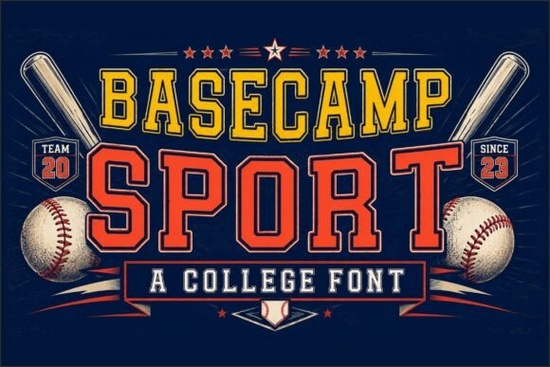
Looking for a typeface that captures the bold energy of classic varsity sports? Basecamp Sport Font is a Basecamp Sport Font designed with strong slab serifs, layered outlines, and a distinctly athletic character. It draws directly from the look of traditional baseball lettering and vintage college branding, making it a solid pick for anyone working on sports-themed designs.
What Makes This Font Stand Out From Other Sports Typefaces?
There are plenty of sports fonts out there, but most of them fall into two camps: either they're too plain or they're so stylized that they're hard to read. Basecamp Sport sits in a useful middle ground. It has the heavy, blocky weight you'd expect from a collegiate display font, but the letter shapes are clean enough to work at different sizes.
A few things worth noting about the design:
- Strong slab serifs give each letter a grounded, sturdy feel that works well for logos and headlines
- Layered and outline-ready styling lets you add depth to your text without needing extra design software tricks
- Uppercase-only character set with numbers and punctuation, which is typical for this kind of display font
If you've used other slab serif fonts before, the letterforms here will feel familiar. But the sporty proportions and bold weight give it a personality that's hard to replicate with a standard typeface.
What Can You Actually Make With It?
This is where Basecamp Sport really shines. It was built with specific design use cases in mind, and it delivers well on those.
Team logos and branding Whether you're designing for a local softball league, a school team, or a recreational sports club, the bold uppercase letters hold up nicely as logo text. You can pair it with a simple icon or emblem and get a professional-looking result without much effort.
T-shirt and hoodie designs Print-on-demand sellers will appreciate how well this font translates to apparel. The thick strokes and clean edges reproduce well on both screen printing and direct-to-garment methods. It also layers nicely with other design elements, which is useful for creating badge-style compositions.
Posters and event flyers Retro athletic posters are a popular niche, and the vintage collegiate feel of this font fits that style perfectly. Think tournament brackets, game day announcements, or charity run promotions.
Merchandise and badges Baseball caps, tote bags, stickers anywhere you need bold, readable text with a sporty vibe, this typeface does the job. The slab serif style keeps things looking intentional rather than generic.
How Do the Layered Styles Work?
One of the more practical features of Basecamp Sport is its layered design approach. This means you can stack different versions of the letterforms to create outlined, shadowed, or multi-color effects.
Here's a simple way to use this in your workflow:
- Set your base text in the solid version of the font
- Duplicate the text layer and switch to the outline version
- Offset or color the outline layer to create a shadow or border effect
- Adjust colors to match your project palette
This technique works in most design software, including free tools like Canva and more advanced options like Adobe Illustrator. It's a straightforward way to add visual interest without overcomplicating your layout.
Who Should Consider This Font?
Basecamp Sport is a good fit for a range of creative projects and users:
- Print-on-demand sellers looking for reliable sports typography for apparel designs
- Small businesses in the fitness, sports, or recreation space that need bold branding elements
- Crafters and hobbyists making team gifts, event decorations, or custom signage
- Designers working on vintage or retro-themed projects that call for athletic lettering
If you're also exploring other options in the slab serif category, Laveto Font offers a different take on bold slab serif lettering that pairs well alongside sports-themed typefaces. Having a few complementary fonts in your library makes it easier to build out full design systems for branding projects.
Quick Before You Start Designing
Here's a short checklist to help you get the most out of Basecamp Sport:
- Check the license Make sure the usage rights cover your specific project, especially for commercial merchandise
- Test at multiple sizes Display fonts can look different at small versus large scales, so preview before committing
- Use high contrast colors Bold slab serif fonts read best when there's strong contrast between text and background
- Keep supporting text simple Pair Basecamp Sport with a clean sans-serif for body copy to maintain readability
- Try the layered styles Even a simple outline effect can make your design look more polished
If sports typography is a regular part of your design work, adding a well-crafted collegiate font like this to your toolkit is a practical move. It covers a specific style niche reliably and gives you enough flexibility to use it across different project types without feeling repetitive.